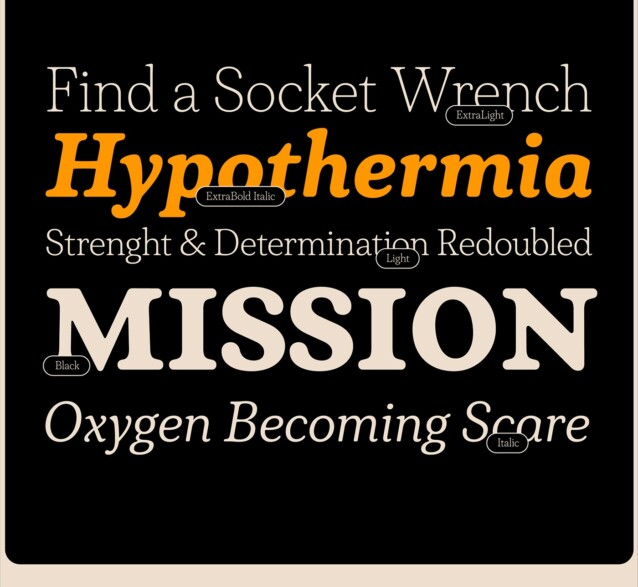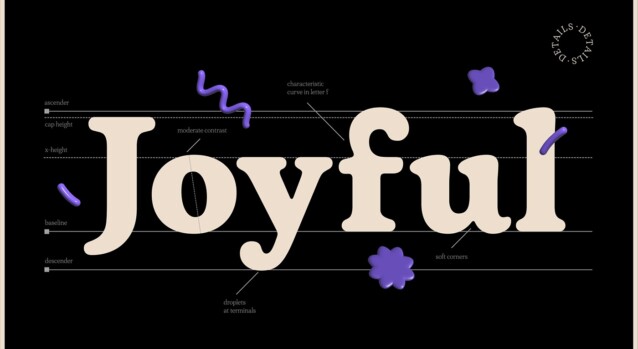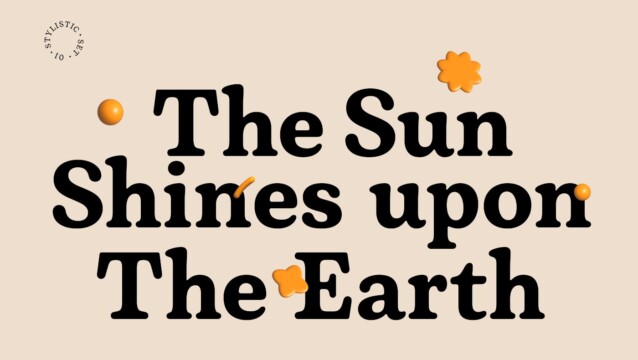
Plush Font Family
Plush Font
Plush Font is a bold rounded serif typeface with a warm and familiar feel built-in. Plush delivers a recognizable nostalgic feeling polished for modern day use. Its design is inspired by the timeless elegance of fonts like Windsor and Cooper, yet it brings a fresh perspective that resonates with contemporary aesthetics, delivered by Fontfabric.